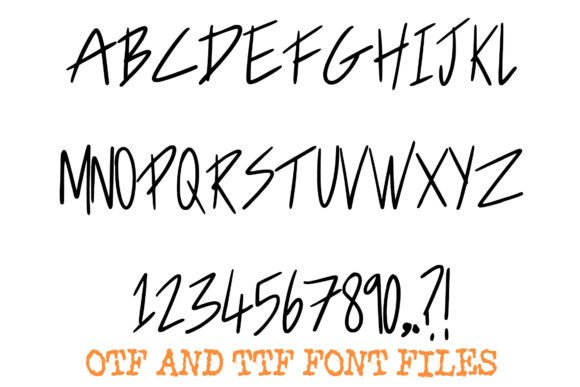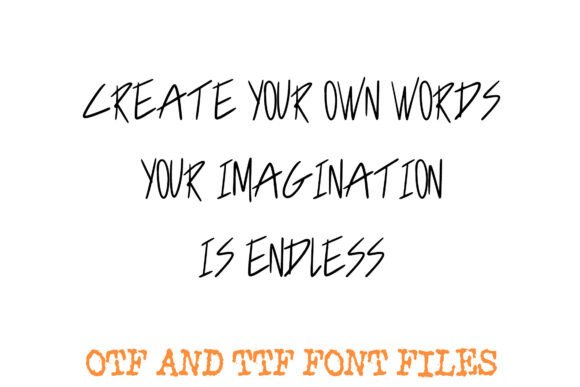
Introduction to Fast Sketch Handwriting Font
Have you ever found yourself lost in the creative zone, effortlessly sketching out ideas with reckless abandon? The thrill of bringing a concept to life, the rush of adrenaline as your pencil glides across the page – it’s a sensation like no other. That’s what the Fast Sketch Handwriting Font is all about: capturing the essence of spontaneous creativity and infusing it into your designs.
For designers, this dynamic typeface is a game-changer. It adds a human touch to any project, giving your content an approachable, high-quality feel that’s impossible to replicate with more formal fonts. Whether you’re working on a personal branding project or creating energetic social media posts, the Fast Sketch Handwriting Font is a valuable design resource that’s sure to elevate your work.
Key Features of Fast Sketch Handwriting Font
- High-quality, unique handwriting font perfect for creative projects, offering a personal touch.
- Designed with a modern and elegant style, making it an ideal choice for a wide range of creative applications.
- Unique characteristics include subtle imperfections and variations in line width, adding a touch of authenticity to your design.
- Perfect for use in digital and print media, including logos, typography, and other design elements.
Honest Review: Fast Sketch Handwriting Font
I recently stumbled upon the Fast Sketch Handwriting Font and I must say it’s a great addition to any designer’s toolkit. As a design enthusiast, I’m always on the lookout for high quality fonts that can elevate my creative project to the next level. This font definitely delivers.
- ✨ The Fast Sketch Handwriting Font has a unique, hand-drawn feel that adds a personal touch to any design.
- ✨ It’s incredibly versatile and can be used for a wide range of creative projects, from branding and marketing materials to digital art and illustrations.
However, I did encounter a few limitations: ⚠️ the font is not as comprehensive as some other handwriting fonts on the market, and it may not be suitable for projects that require a more polished, refined look.
Overall, I’m impressed with the Fast Sketch Handwriting Font and would definitely recommend it to designers looking for a unique, high-quality font for their creative project. It’s a great design resource that’s perfect for adding a personal touch to any design.